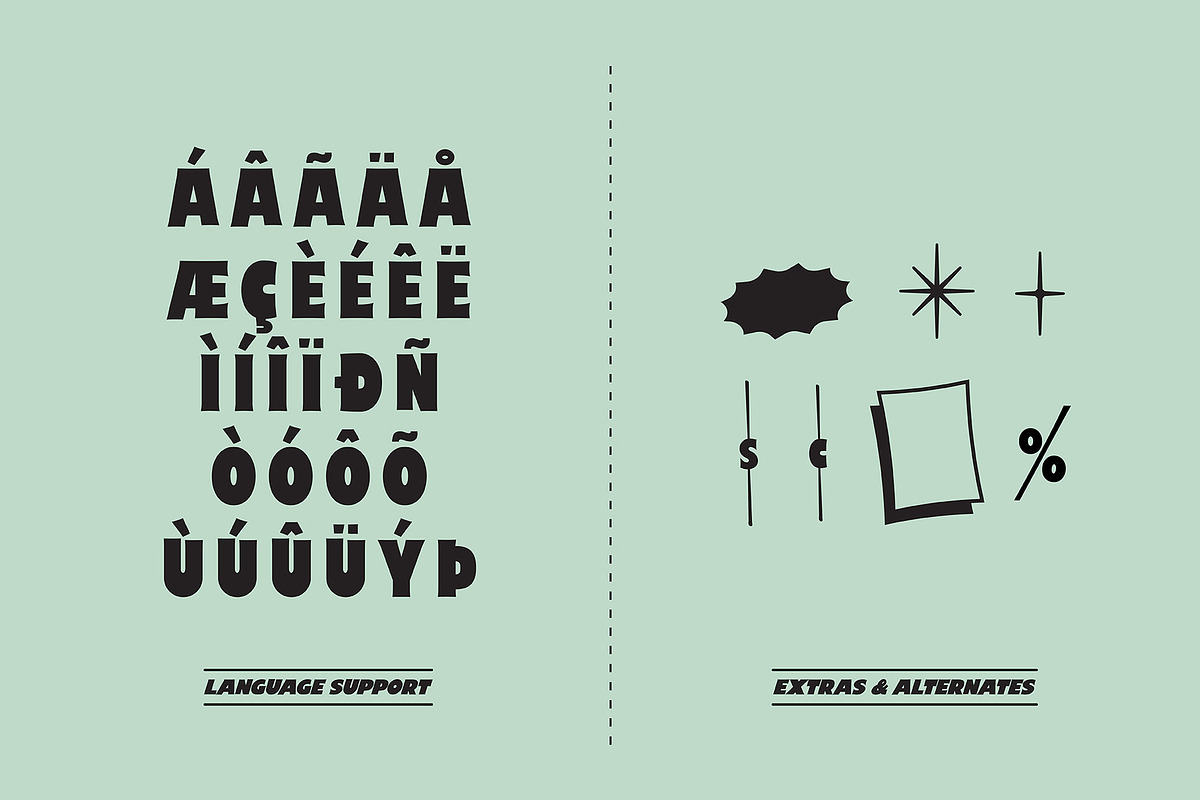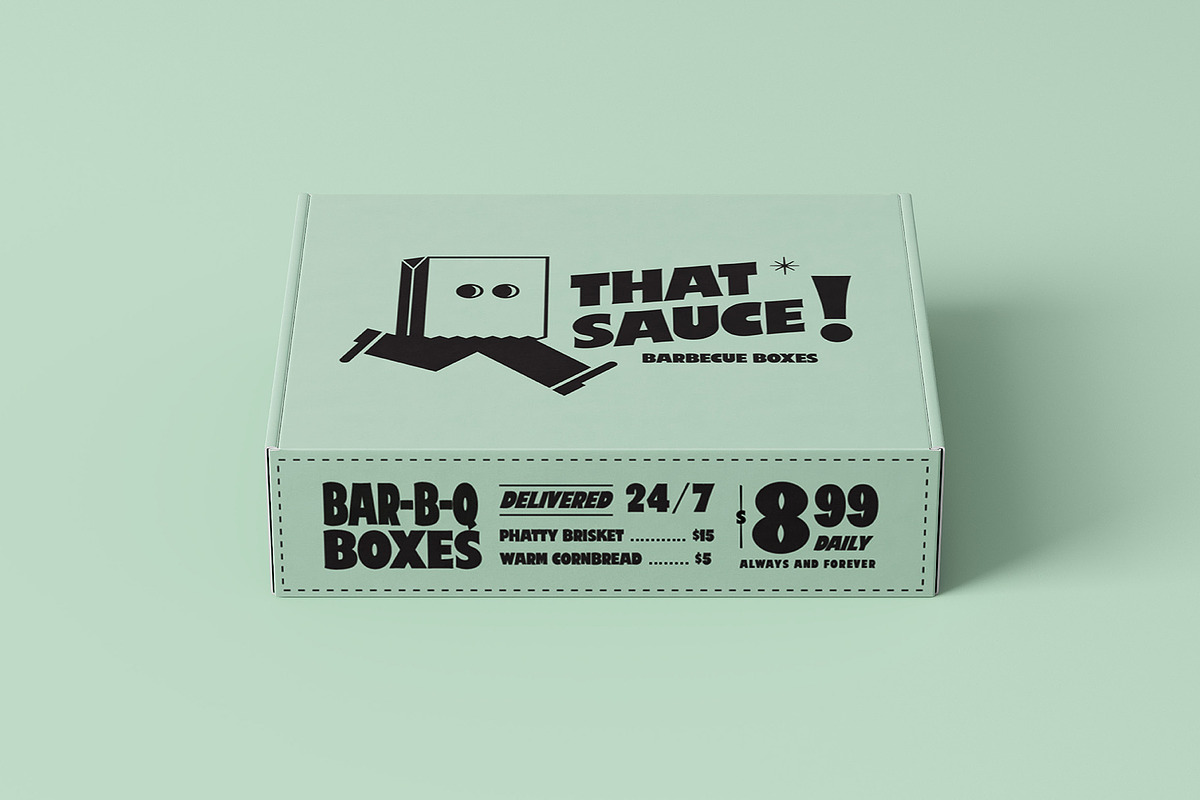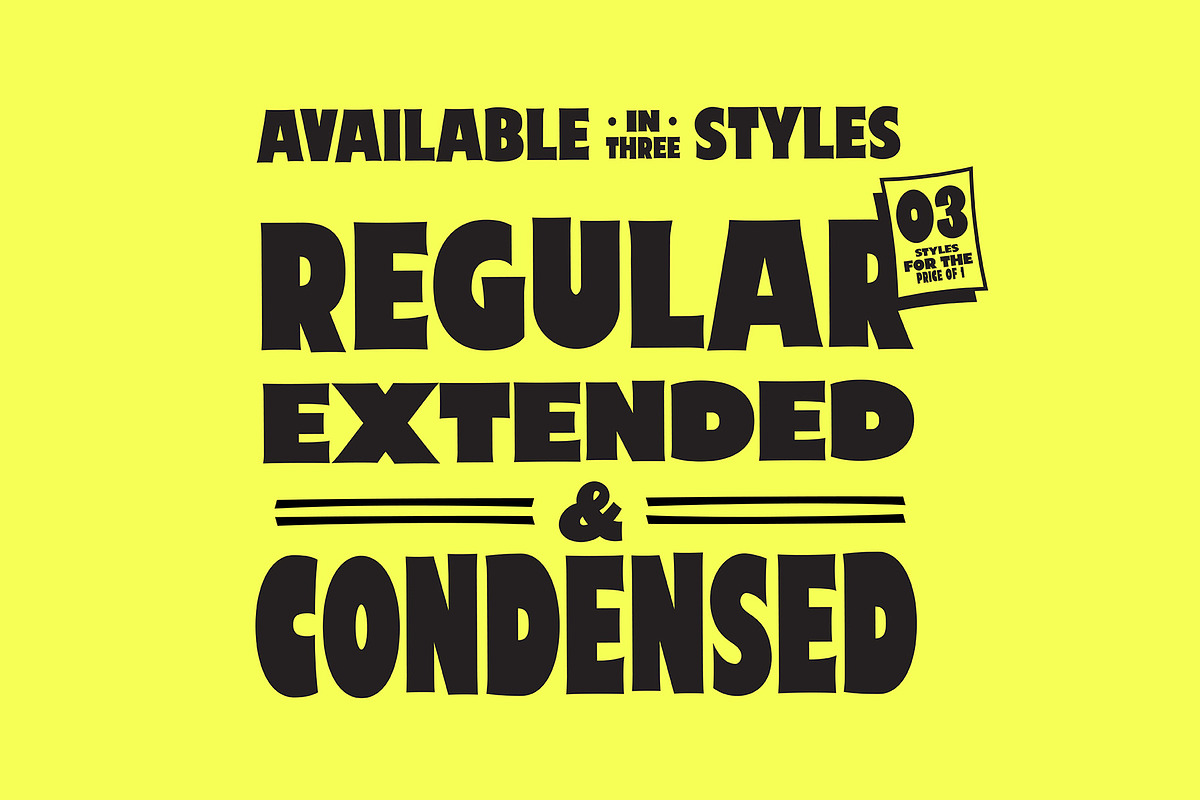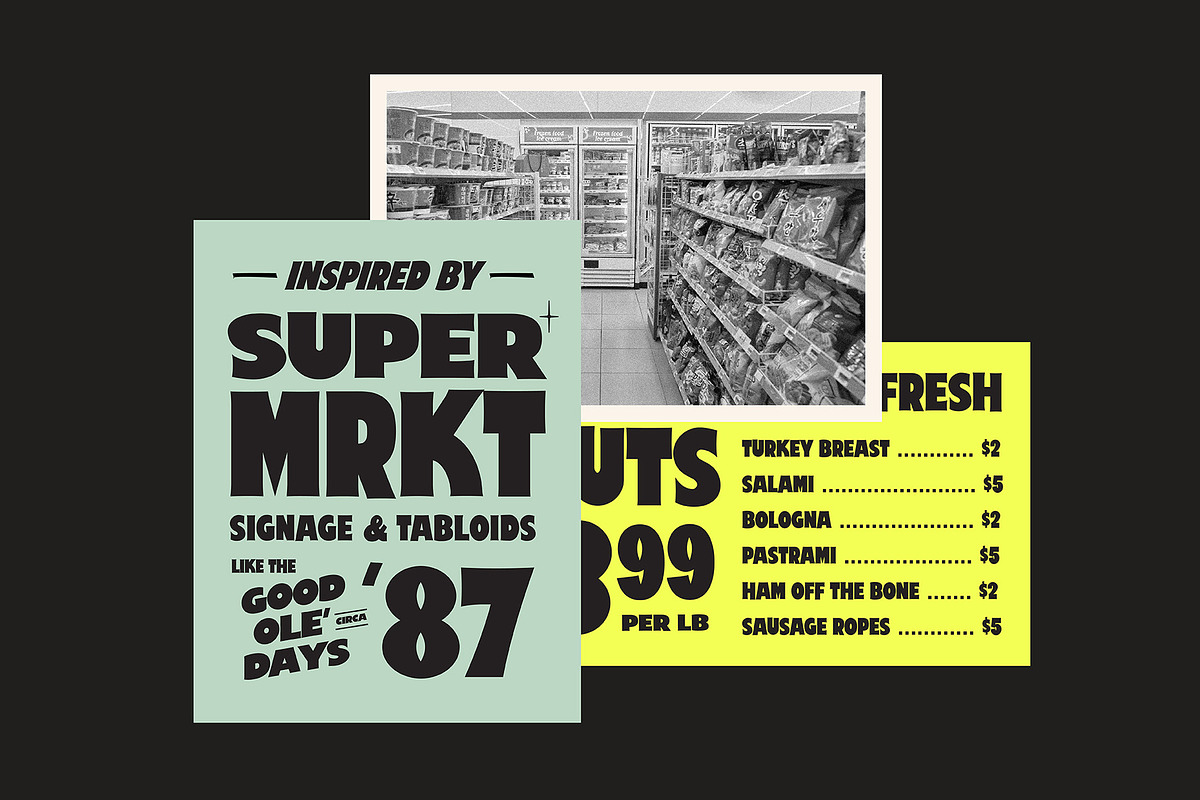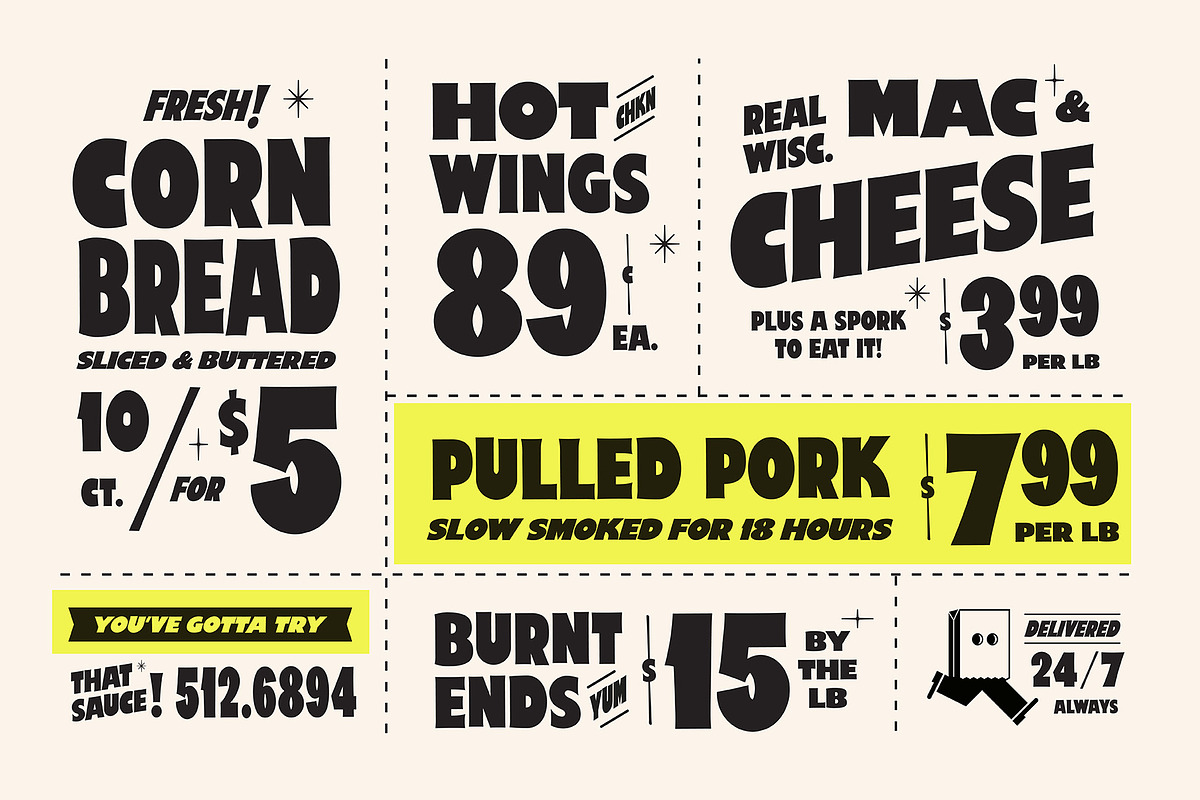
Price Check Font
Price Check is a display typeface modeled after hand-painted characters commonly seen in supermarket signage in the mid to late 20th century. It is a heavy-handed sans serif with slightly flared edges to mimic the way a brush would shape each character. Sign painters mastered the art of typographic impact, but because of the hand drawn nature, there were always imperfections.
Create bold typographic statements with 3 different font styles. Perfect for packaging and branding projects looking to create bold impact with a retro flare.